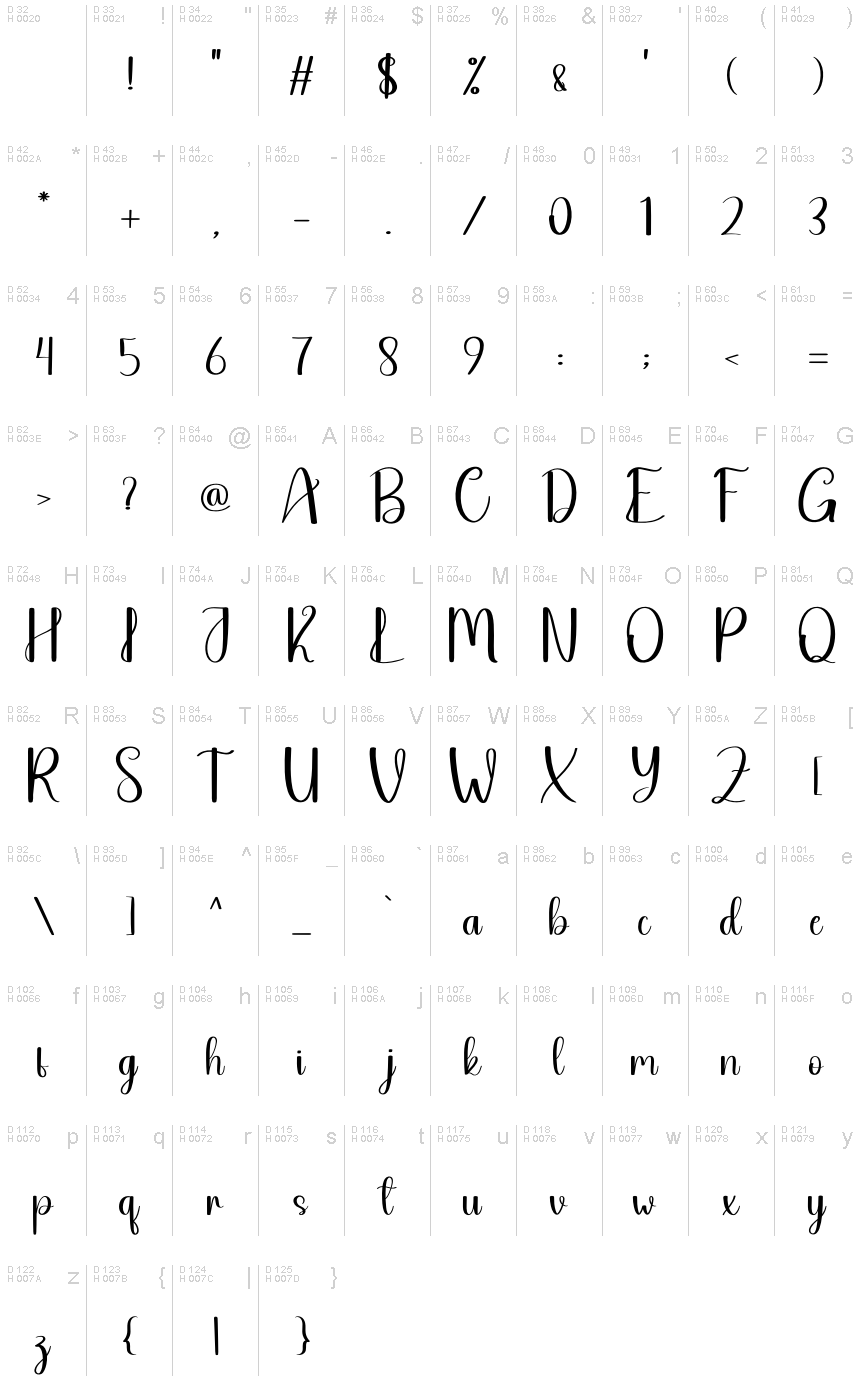
Tshirt Valentine
Tshirt Valentine is a captivating handwritten font that exudes an alluring, romantic vibe. Designed by Andi Moz, this typeface boasts a playful, flowing script with elegant ligatures and charming flourishes. The organic, hand-crafted aesthetic lends itself beautifully to a wide range of applications, from heartfelt greeting cards and wedding invitations to fashion-forward t-shirt designs and social media graphics.
Tshirt Valentine's versatility lies in its ability to convey a sense of warmth and personalization, making it an ideal choice for projects that aim to evoke emotions and connect with audiences on a deeper level.